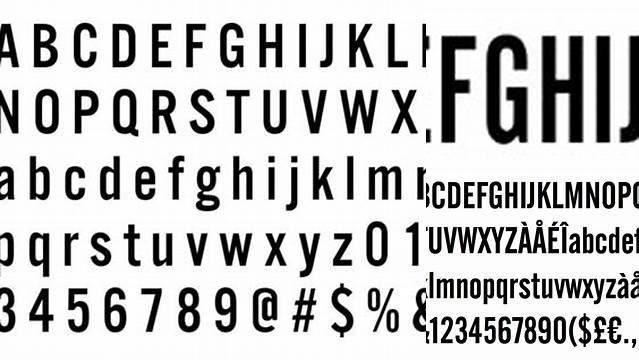
Alternate Gothic Std No2 Font Free Download Guide
Are you guys looking for a font that screams classic yet feels incredibly modern? Well, look no further! In this article, we're diving deep into the world of Alternate Gothic Std No2, a typeface that has stood the test of time and remains a favorite among designers. We will explore its history, characteristics, and, most importantly, where you can find an alternate gothic std no2 font free download.
What Makes Alternate Gothic Std No2 So Special?
Alternate Gothic Std No2 is more than just a font; it's a piece of design history. This font, a part of the esteemed Alternate Gothic family, is renowned for its tall, condensed sans-serif design. It gives off a vibe that's both authoritative and sleek, making it perfect for a wide range of applications. Think about it β from bold headlines that grab your attention to clean, crisp text in brochures, this font does it all. The secret sauce lies in its simplicity and strong geometric forms. Each letter is crafted with precision, ensuring legibility and visual impact. The tall, narrow structure maximizes space, making it ideal for designs where you need to convey a lot of information without clutter. This is why Alternate Gothic Std No2 is a go-to choice for posters, advertisements, and even website headers. Its versatility stems from its ability to blend seamlessly with different design styles. Whether you're aiming for a retro aesthetic or a contemporary look, this font fits right in. Itβs like that reliable friend who always has your back, no matter the situation. Moreover, the font exudes a sense of timelessness. It doesn't adhere to fleeting trends, ensuring your designs remain relevant and impactful for years to come. This is a crucial factor, especially in branding, where consistency and longevity are key. The Alternate Gothic Std No2 font is also incredibly adaptable to different media. It looks just as stunning in print as it does on digital screens, which is a significant advantage in today's multi-platform world. So, whether you're designing a poster, a website, or an app, you can count on this font to deliver exceptional results. Its clarity and readability make it a top choice for body text as well, especially in designs where a modern, minimalist feel is desired. All in all, Alternate Gothic Std No2 is a powerhouse of a font, combining classic elegance with contemporary functionality. It's a staple in any designer's toolkit, and for good reason.
The History Behind the Iconic Font
To truly appreciate the alternate gothic std no2 font free download, it's essential to understand its rich history. The Alternate Gothic family was initially created by the renowned type foundry, Linotype. This name itself carries weight in the typography world, known for its innovative and high-quality font designs. The Gothic moniker, in this case, refers to the geometric sans-serif style that was popular in the early 20th century. These fonts were often used in industrial and commercial settings, conveying a sense of strength and efficiency. Alternate Gothic Std No2 is a specific variation within this family, characterized by its condensed form. This design choice was particularly significant because it allowed for more text to be fitted into limited spaces, a crucial factor in newspaper and poster design during its early years. Imagine the bustling city streets of the 1900s, plastered with advertisements and announcements β chances are, you would have seen a variation of Alternate Gothic gracing those signs. The font's design reflected the era's focus on functionality and clarity, perfectly aligning with the burgeoning industrial age. Over the years, Alternate Gothic Std No2 has undergone various iterations and adaptations, but its core essence has remained unchanged. This speaks volumes about its enduring appeal and timeless design. The font has seamlessly transitioned from traditional print media to the digital realm, proving its adaptability and continued relevance. It has been used in countless branding projects, advertising campaigns, and editorial designs, solidifying its place as a cornerstone of modern typography. The history of Alternate Gothic Std No2 is a testament to the power of thoughtful design. It's a font that was created with a specific purpose in mind, and its functionality and aesthetic appeal have allowed it to thrive for over a century. When you use Alternate Gothic Std No2, you're not just choosing a font; you're tapping into a legacy of typographic excellence.
Key Characteristics of Alternate Gothic Std No2
When we talk about the alternate gothic std no2 font free download, it's essential to highlight the specific characteristics that make it so unique. This font is instantly recognizable, and its defining features contribute to its versatility and timeless appeal. One of the most prominent traits is its condensed sans-serif design. The tall, narrow letters create a strong vertical emphasis, making it perfect for headlines and titles where you want to make a statement. The condensed form also allows you to fit more text into a limited space, which is a major advantage in various design applications. Another key characteristic is its geometric structure. The letters are constructed with clean, precise lines and angles, giving the font a modern and authoritative feel. This geometric quality also enhances its legibility, ensuring that your message is conveyed clearly and effectively. The absence of serifs (the small decorative strokes at the ends of letterforms) contributes to its clean and minimalist aesthetic. This makes Alternate Gothic Std No2 a great choice for designs that aim for a contemporary look. The font's weight also plays a crucial role in its character. It's typically available in bold weights, which further amplify its impact and presence. The bold strokes command attention and create a sense of importance, making it ideal for headlines, posters, and other display purposes. However, the font also works well in lighter weights, providing flexibility for different design needs. The x-height (the height of the lowercase letters) in Alternate Gothic Std No2 is relatively high, which improves readability, especially in smaller sizes. This is a crucial factor for body text and other applications where clarity is paramount. The font's overall tone is one of strength, efficiency, and modernity. It conveys a sense of confidence and professionalism, making it a popular choice for corporate branding and other formal designs. But its versatility also allows it to be used in more creative and playful contexts, depending on the overall design concept. In essence, Alternate Gothic Std No2 is a masterclass in typographic design. Its unique combination of characteristics makes it a powerful tool for any designer looking to create impactful and timeless visuals.
Alternatives to Alternate Gothic Std No2
If scoring an alternate gothic std no2 font free download proves elusive, don't fret! The design world is brimming with fantastic alternatives that capture a similar aesthetic. Exploring these options can not only save you some dough but also introduce you to new fonts that might just become your next go-to choice. One popular alternative is Bebas Neue. This sans-serif font shares the tall, condensed characteristics of Alternate Gothic, making it a superb substitute for headlines and titles. Bebas Neue is also free for commercial use, which is a major win! Another excellent contender is Oswald. This font boasts a similar geometric structure and condensed form, exuding a modern and professional vibe. Oswald is available on Google Fonts, making it easily accessible and completely free. If you're looking for a font with a slightly softer edge, Montserrat is worth considering. While not as condensed as Alternate Gothic, it shares the same sans-serif simplicity and geometric clarity. Montserrat is also a free option on Google Fonts, offering a versatile alternative for various design projects. For a more industrial and robust feel, Roboto Condensed is a solid choice. Its strong, clean lines and condensed form make it ideal for headlines, posters, and other display purposes. Roboto Condensed is part of the Roboto family, a widely used and highly regarded font available on Google Fonts. Another noteworthy alternative is Lato. This sans-serif font is known for its semi-rounded details, giving it a friendly yet professional appearance. Lato is a versatile font that works well in both headlines and body text, and it's also free on Google Fonts. When choosing an alternative, consider the overall tone and purpose of your design. Think about the specific characteristics of Alternate Gothic Std No2 that you find appealing, such as its condensed form, geometric structure, or bold weight. Then, look for fonts that share those qualities. Remember, the best font is the one that effectively communicates your message and enhances your design aesthetic. Don't be afraid to experiment with different options and see what works best for your project. Exploring font alternatives can be a fun and rewarding process, leading you to discover hidden gems that perfectly complement your creative vision. So, while the quest for an alternate gothic std no2 font free download continues, rest assured that there are plenty of other fantastic fonts out there waiting to be explored.
Conclusion: Embrace the Legacy of Alternate Gothic Std No2 and Beyond
In conclusion, the Alternate Gothic Std No2 font is more than just a typeface; it's a design icon. Its timeless appeal, geometric precision, and impactful presence have made it a staple in the design world for decades. While the search for an alternate gothic std no2 font free download might present some challenges, understanding its history, characteristics, and alternatives can empower you to make informed design choices. Remember, the quest for the perfect font is an ongoing journey. Whether you're lucky enough to snag a free download, invest in a licensed version, or discover a fantastic alternative, the key is to choose a font that effectively communicates your message and enhances your overall design. Explore the vast world of typography, experiment with different styles, and don't be afraid to step outside your comfort zone. The design landscape is constantly evolving, and new fonts are being created all the time. By staying curious and open-minded, you'll not only find the perfect font for your current project but also develop a deeper appreciation for the art of typography. So, embrace the legacy of Alternate Gothic Std No2, but also venture beyond its familiar territory. Discover new fonts, explore different styles, and let your creativity soar. After all, the world of typography is a playground for designers, filled with endless possibilities and exciting discoveries. Happy designing, guys!